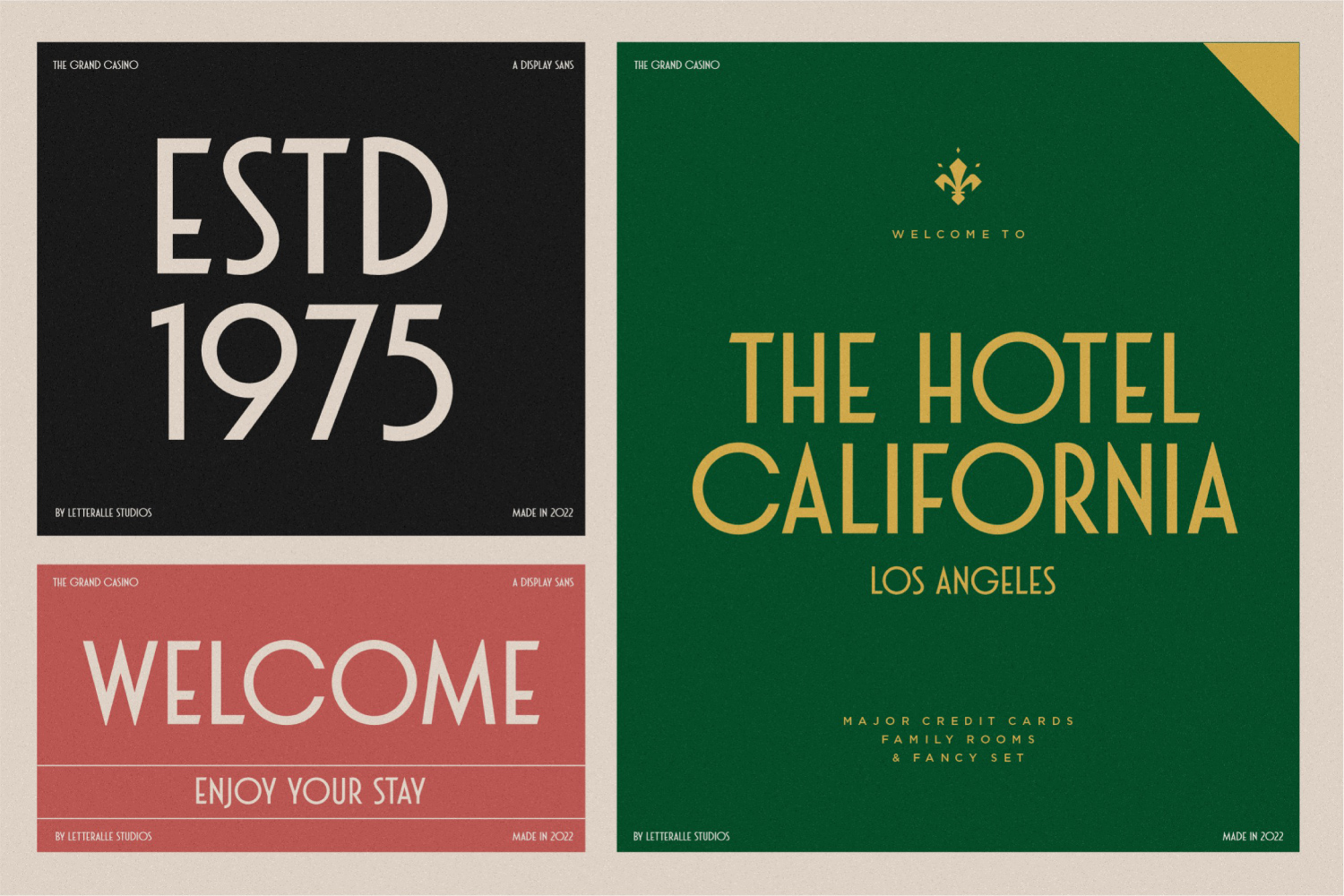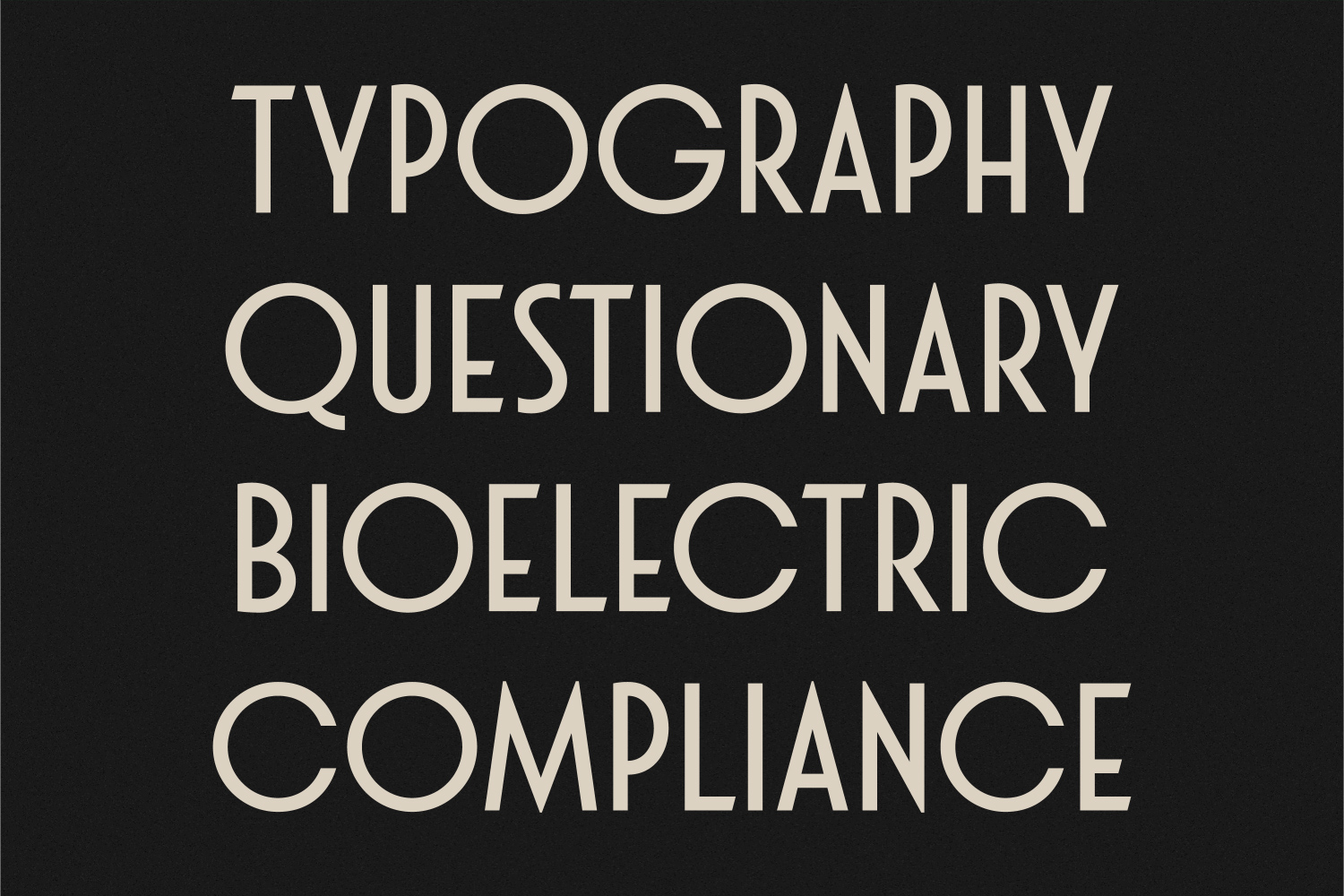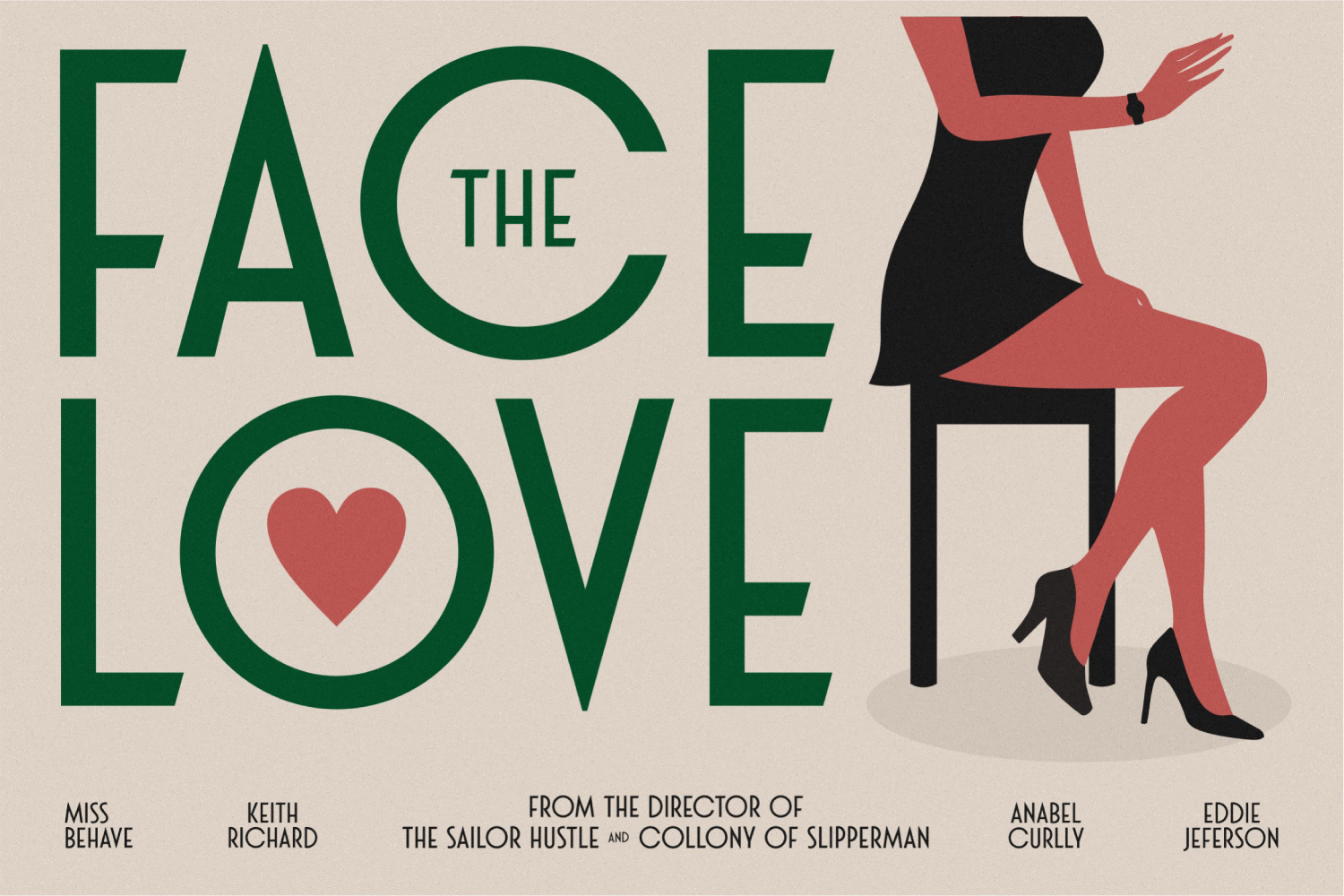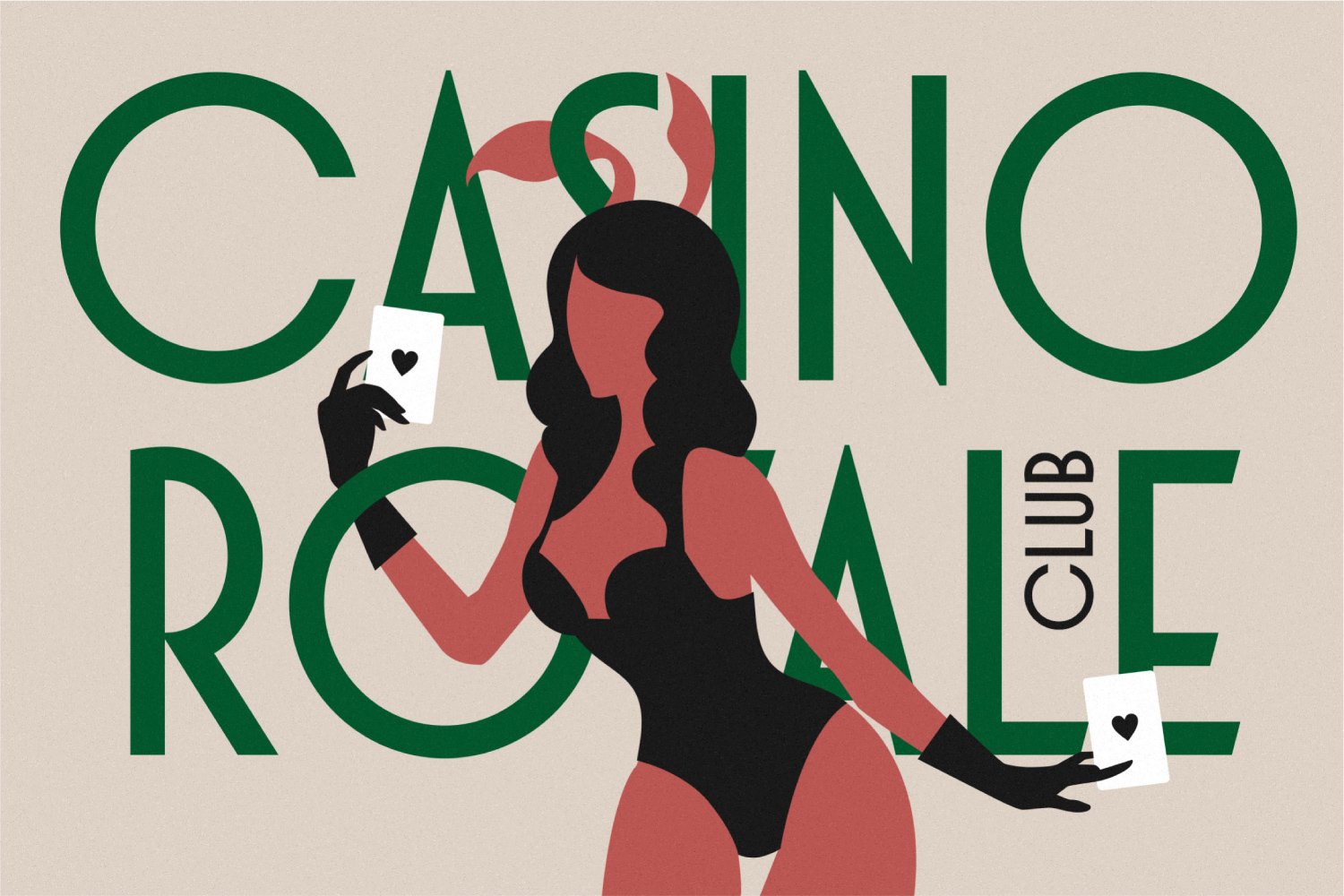
Grand Casino Sans Serif Font is an uppercase sans serif typeface with a vintage and minimal style. Grand Casino is a versatile font, perfect for display, editorial projects, Logo design, Wedding, Clothing Branding, product packaging, magazine headers, or simply as a stylish text overlay to any background image.